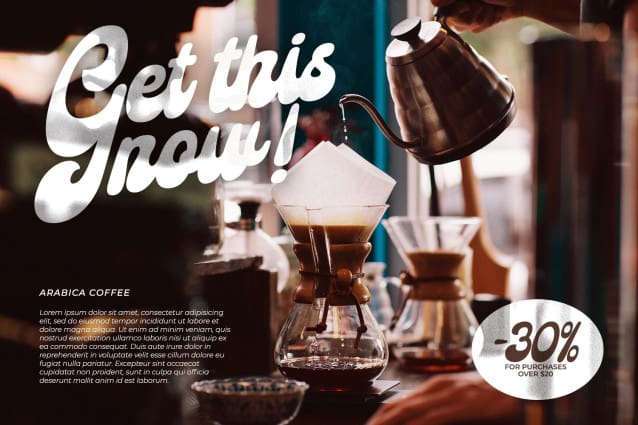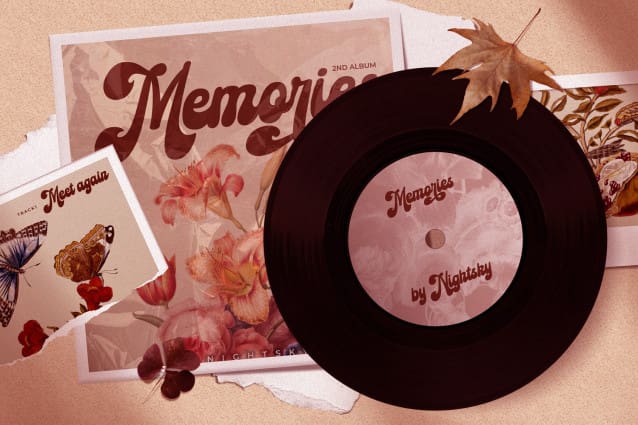
Tailgates Font
Tailgates Font, a script font that exudes a robust and inviting charm. This typeface showcases a substantial weight, offering your text a bold and captivating presence. Tailgates Font is characterized by its rounded letterforms, contributing to a friendly and approachable aesthetic. With consistent proportions and a relatively high contrast, it achieves a dynamic and eye-catching design.
What sets Tailgates apart are the captivating swinging ends that adorn select letters. These elegant flourishes add a sense of whimsy and grace to your text, creating a visual experience that is both lively and engaging. The combination of round shapes and these decorative elements adds a unique touch to your designs.